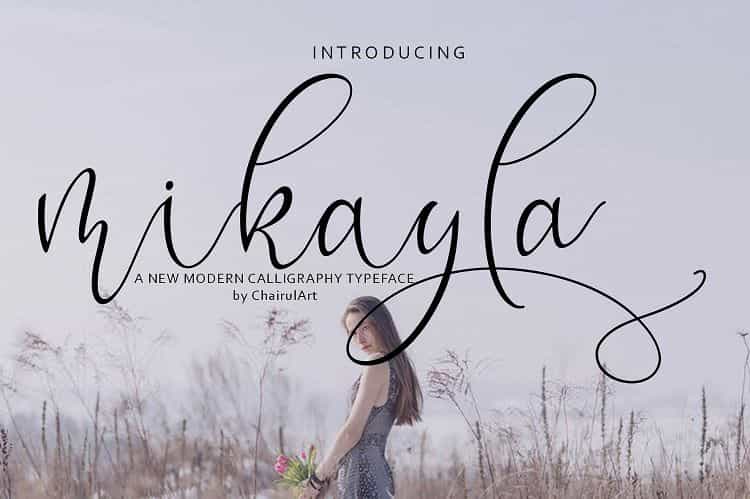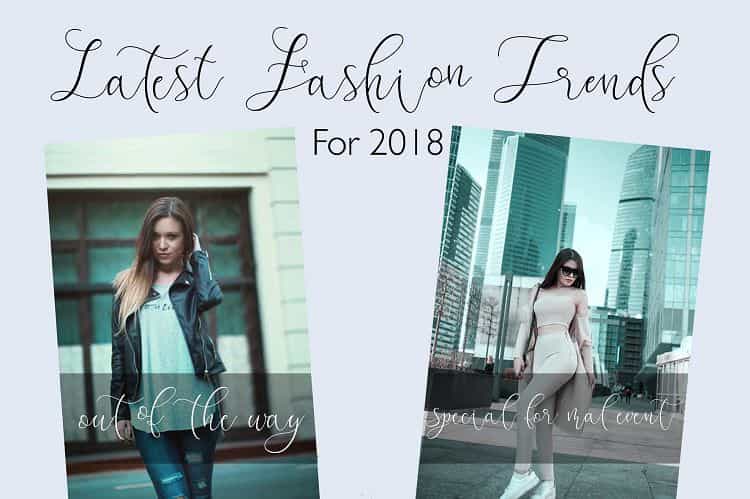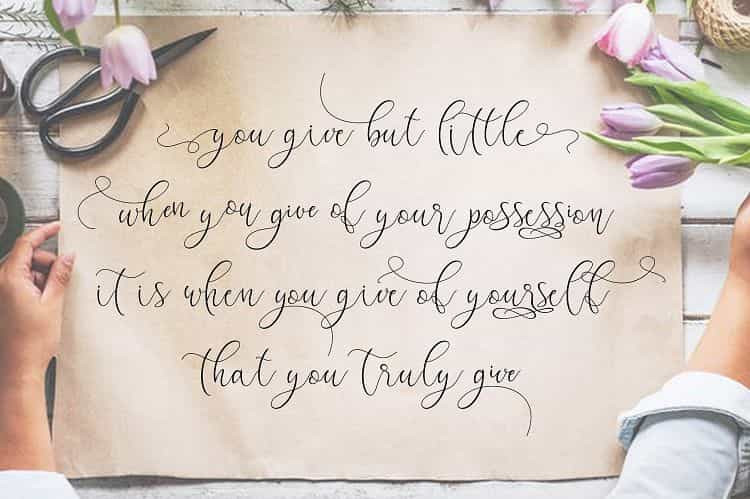
Introducing Mikayla Font. This is a modern script font, each letter has been carefully designed to make your text look lovely. With modern script style this font will perfect for many different project, example: the invitations, greeting cards, posters, name card. quotes , blog header,, branding,,, logo etc the list goes on and on!